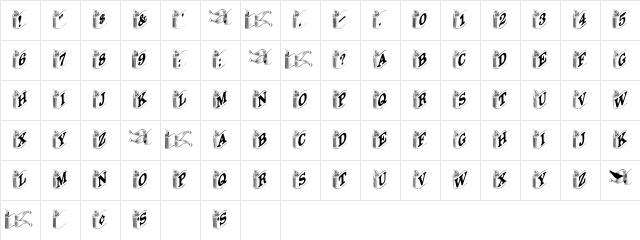
Complete Banners Plain glyph index. Displaying only characters natively supported by Banners Plain font.
Banners is a composed and adaptable typeface that performs quietly and consistently across a wide range of design contexts.